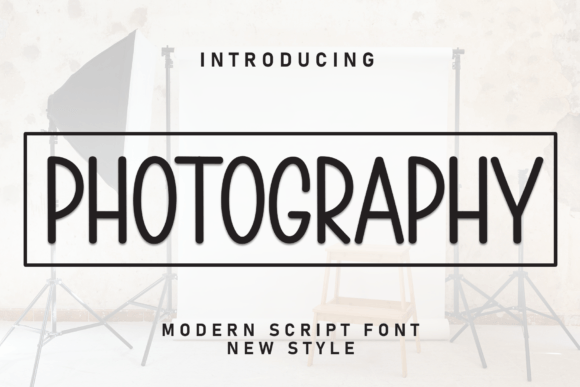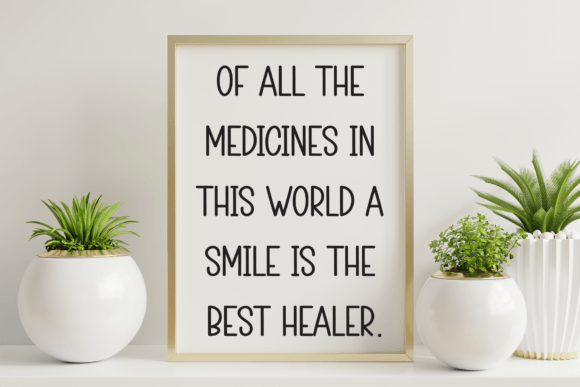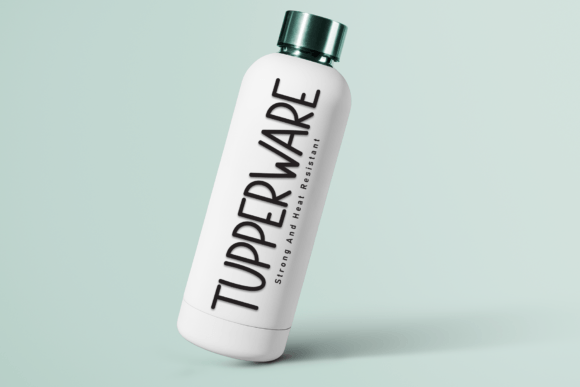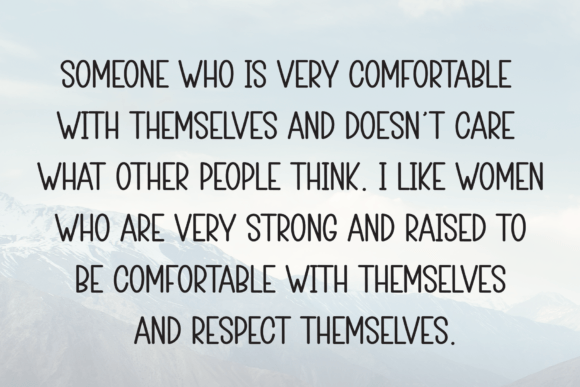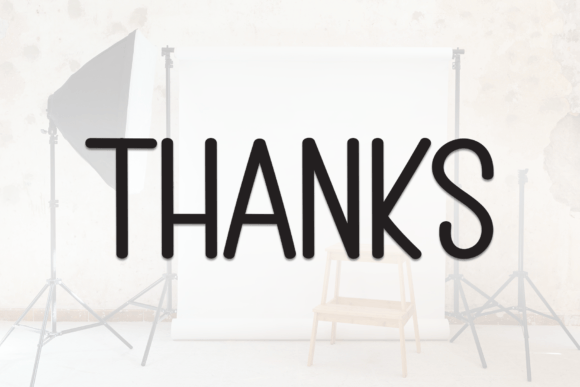
Photography Font
Photography is a simple yet elegant sans-serif font with clean lines and a timeless appeal. Its understated design exudes sophistication and readability, making it ideal for various applications, from branding and editorial design to signage and web content.